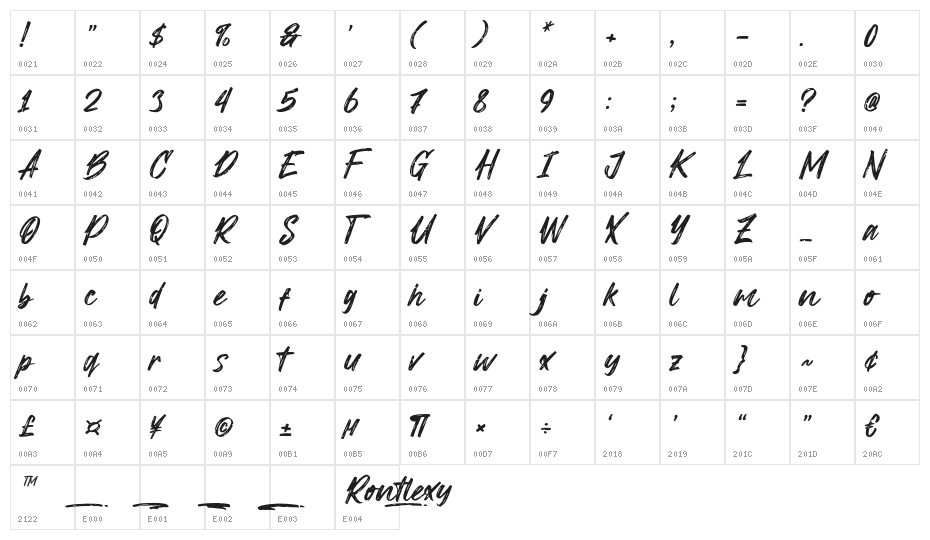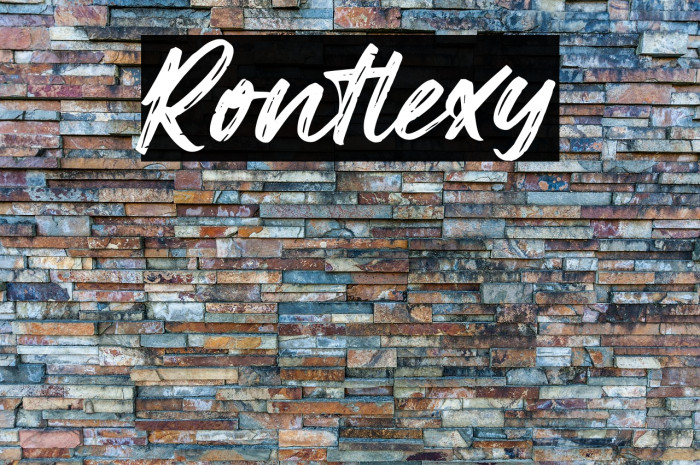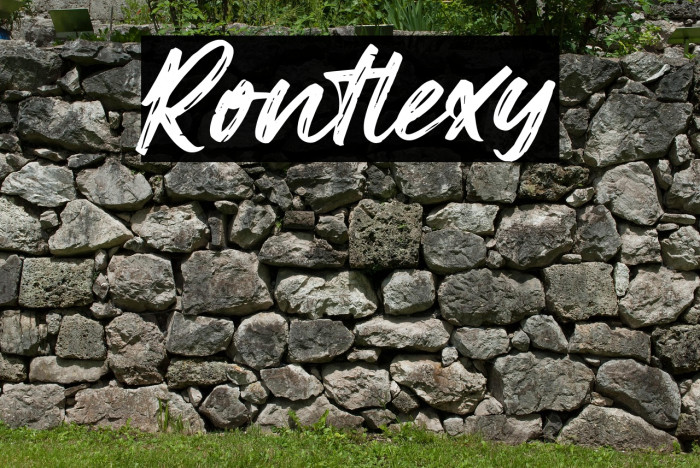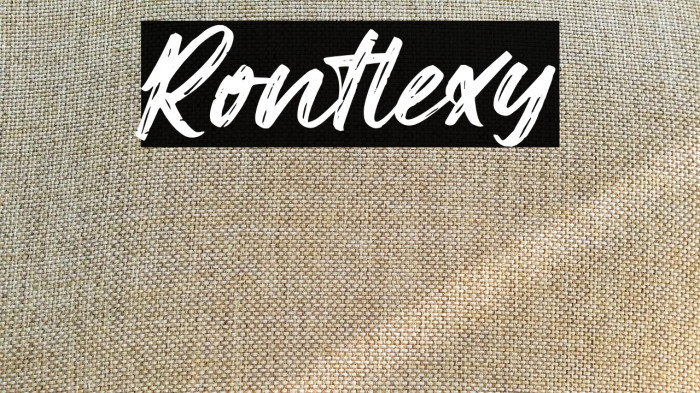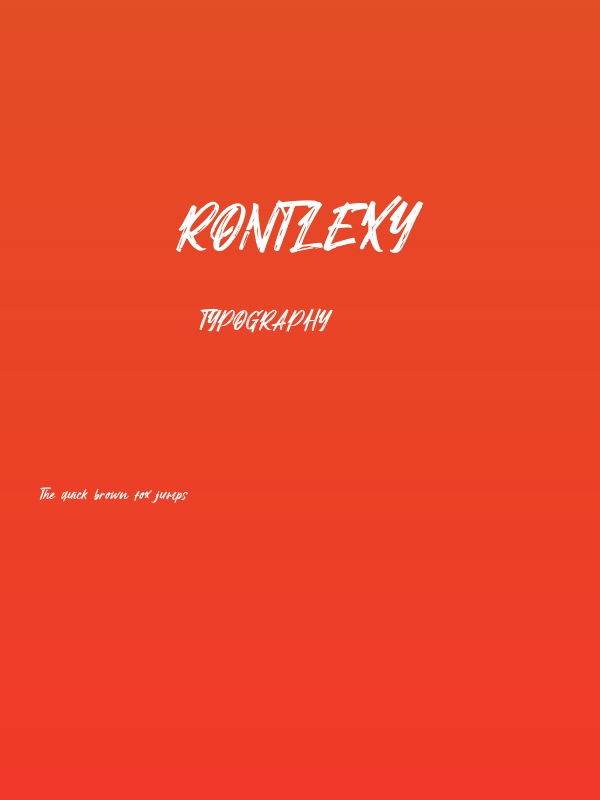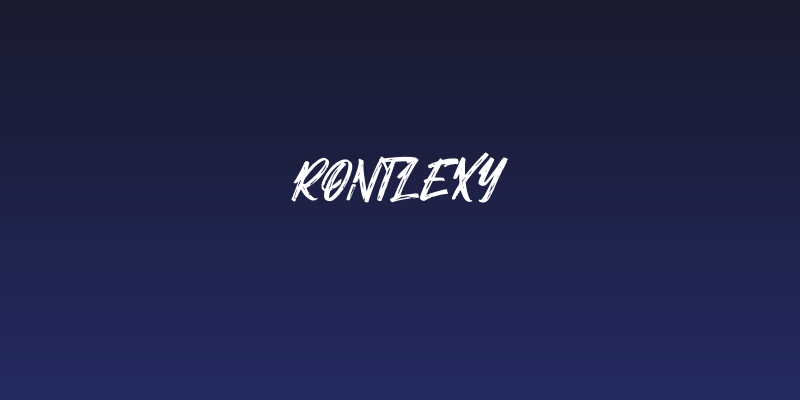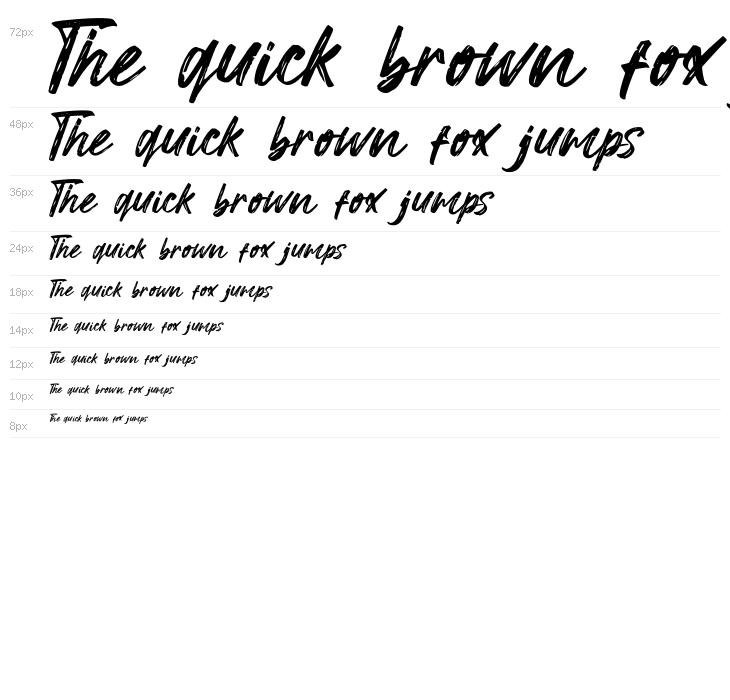
Rontlexy Font
Rontlexy Description
This font features a dynamic and energetic script style, characterized by bold, sweeping strokes that give it a hand-drawn appearance. The letters are slightly slanted, adding to the sense of movement and fluidity. The uppercase and lowercase letters are well-balanced, with a consistent stroke width that maintains readability while conveying a sense of artistic flair. The numbers and special characters are crafted with the same attention to detail, ensuring a cohesive look across all elements. This font's expressive style makes it suitable for creative and informal applications.
| Proposed Projects | Ideal for branding, invitations, posters, and any project requiring a personal, artistic touch. |